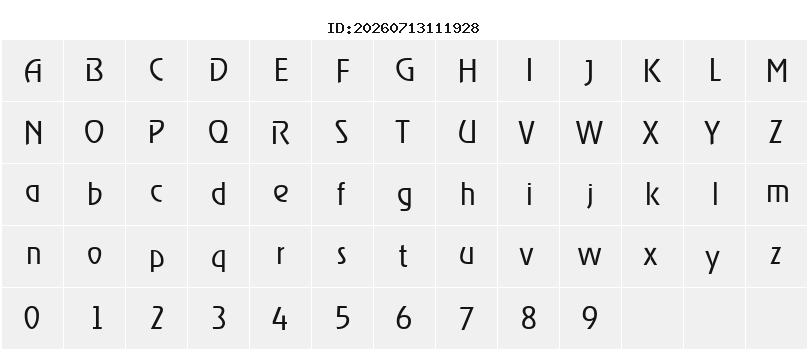
About Ragtime-Light.ttf
Ragtime-Light.ttf is a modern, elegant sans-serif font designed for ultimate readability and visual harmony. Perfect for branding, headlines, web design, and print materials.